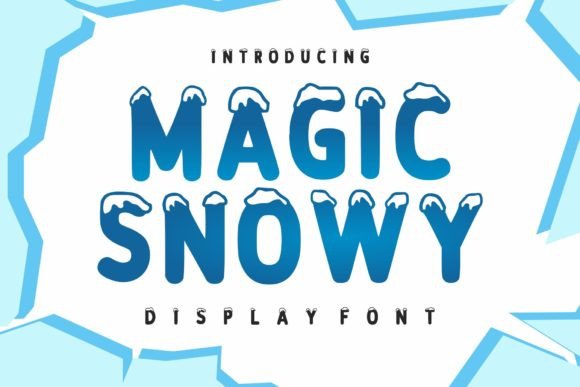
Unveil a winter wonderland of words with Magic Snowy Font, a crafty and snowy display font that's sure to captivate your designs with its icy charm. Each letter, delicately blanketed in snow, evokes the magic of a winter's day, transforming your creative projects into enchanting realms.
Picture your Christmas cards, Thanksgiving invitations, and posters adorned with the whimsical elegance of Magic Snowy Font. Its snowy characters dance across the page, creating a festive atmosphere that warms the heart. With this font by your side, your designs will become irresistibly charming, leaving a lasting impression on all who behold them.
Dive into a world of creativity with Magic Snowy Font. Its versatility knows no bounds, adapting effortlessly to children's activities and school projects alike. Logos and packaging will radiate an enchanting allure, while posters and graphics will take on a captivating dimension that's sure to turn heads.
Trust Magic Snowy Font to elevate your design aspirations to new heights. This font is meticulously crafted to become your go-to choice, bringing your imaginative visions to life with unparalleled grace and charm.